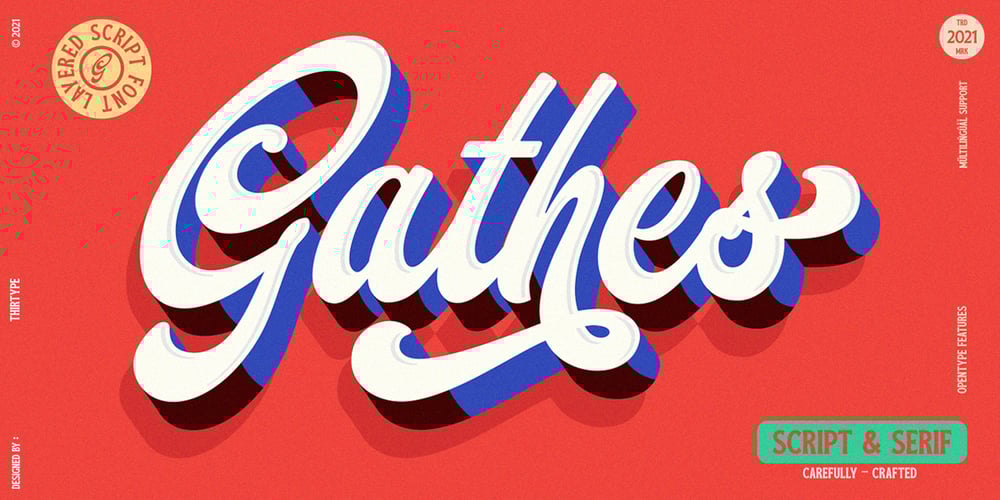
Gathes
Gathes font
Gathes Font Family was designed by Cucu Supriyadi and published by thirtype. Gathes contains 9 styles and family package options. Gathes is vintage pop script with layered style, Since a few years I try to exploration of script with layered system. and this my third script layered from my collection font. Gathes is basic from 5 styles layered type. Base layer is regular, add an shine, extrude detail, and shadow to create a dimensional look. Several styles can be mix and matched together or can be used alone and/or in layered. The Script font have a opentype feature such a stylistic set, ligature, swash ornament. For additional we add a serif version in this family, so that it can be combined with script fonts.Gathes works great in any graphics app that allow to create a layered type and good to create the logo, badge, poster, heading, magazine, advertising design purpose and more.Features:- Opentype features- Ligatures- Alternates- PUA Encoded- Multilanguange